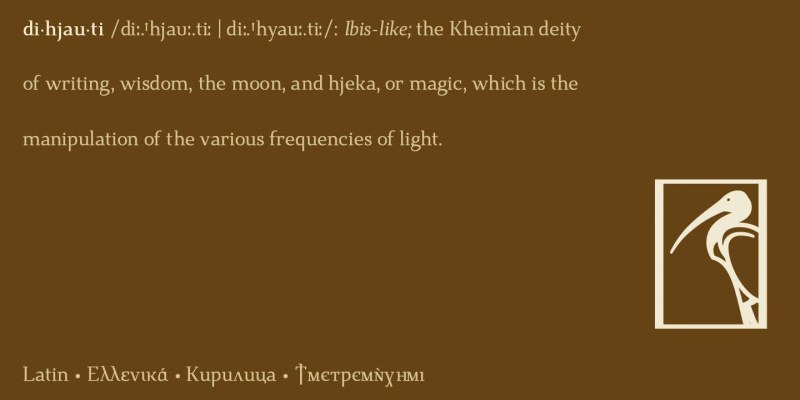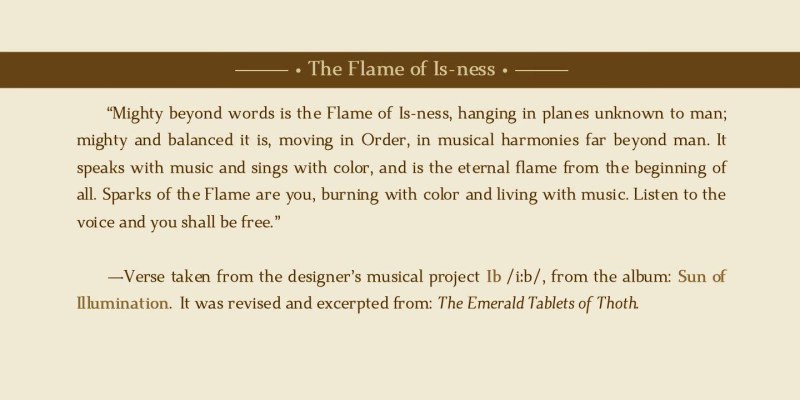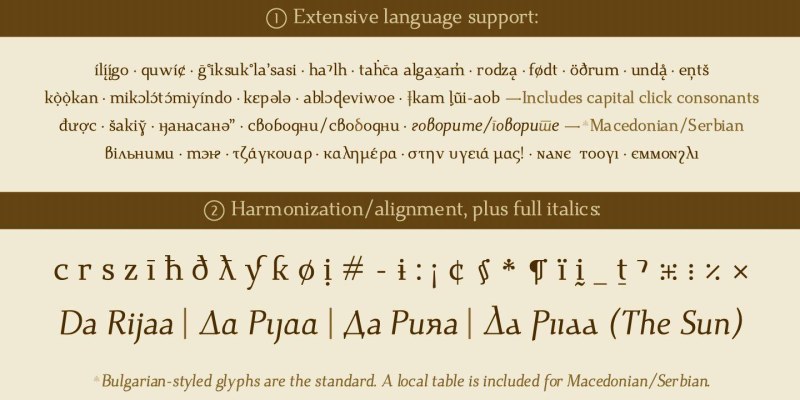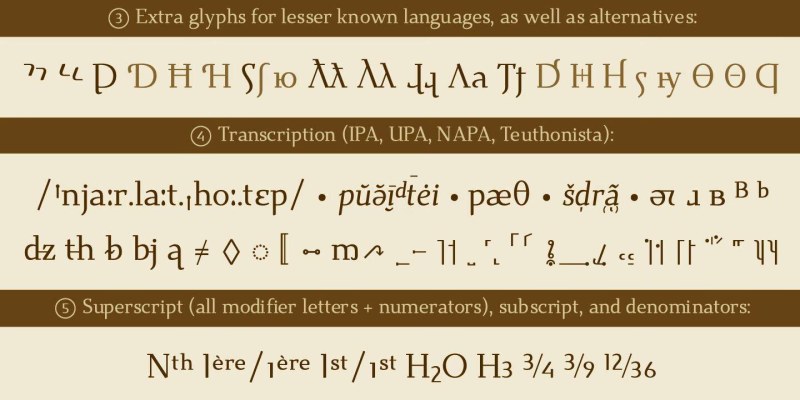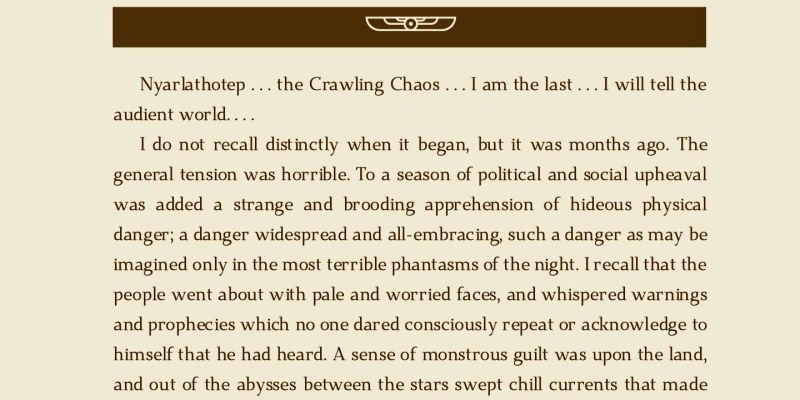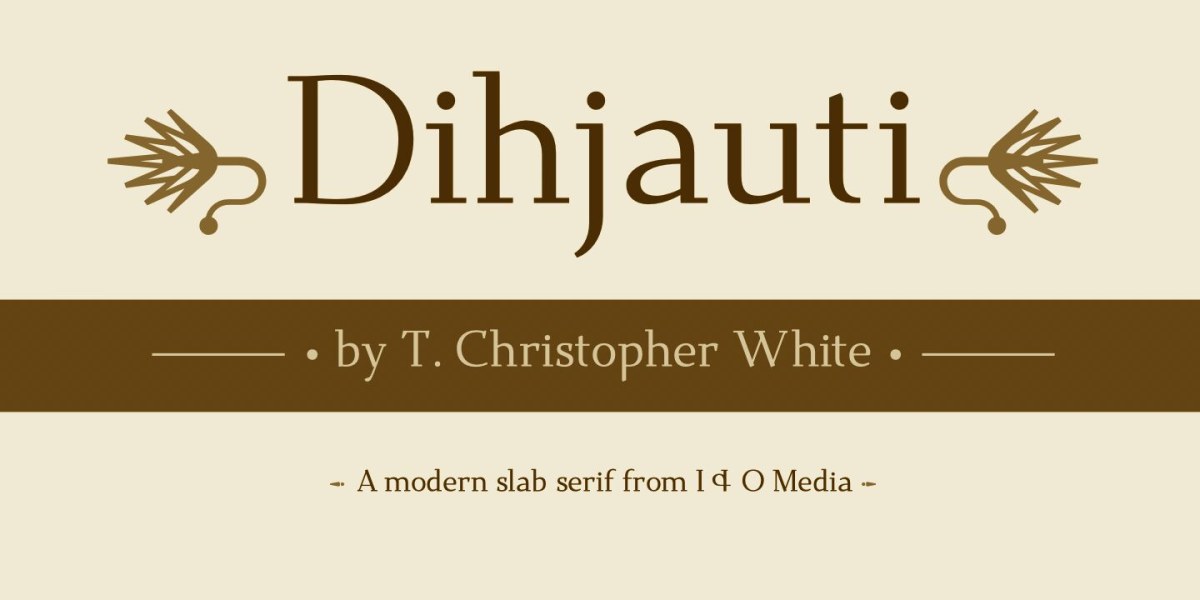
Dihjauti Font Family
Dihjauti is modern and stately based on Dwiggin’s Electra with shades of Palatino and Perpetua. Like its inspirers, it has broad counters and spacing, which temper it an…
Dihjauti is modern and stately based on Dwiggin’s Electra with shades of Palatino and Perpetua. Like its inspirers, it has broad counters and spacing, which temper it and give it warmth, making it comfortable and well-suited for longer texts. It is balanced, from punctuation to reference marks and symbols. Its design considers all extra characters for languages that few fonts support, such as African and First Nation.
These additional characters, such as Edh, Esh, Gamma, Ezh, Yogh, the pharyngeal fricatives, the click consonants, which have added capital versions, the glottal stops, et cetera, actually look like they belong, as opposed to being afterthoughts. The italic incorporates a touch of Arrighi. It includes all transcription systems relevant to Latin, Cyrillic, and Greek alphabets, standard Coptic, and extra characters for Teuthonista and First Nation. It also lists Egyptian-styled pictographs (where applicable), APL, various mathematical symbols and arrows, and several alternatives in the PUA.
Notes: 1) The superscript characters, modifier letters, and numerators are all part of the superscript table. 2) The bold versions of the font have some alternative/reversed characters; I did this because there is no difference in the math or punctuation symbols, i.e., the bold versions are not bold (with exceptions), which gives the font a better harmony. 3) The font uses anchors, meaning it will not align properly for linguistic use or otherwise without open type. 4) For those interested, Open or Libre Office can access all glyphs using Insert > Special Character.